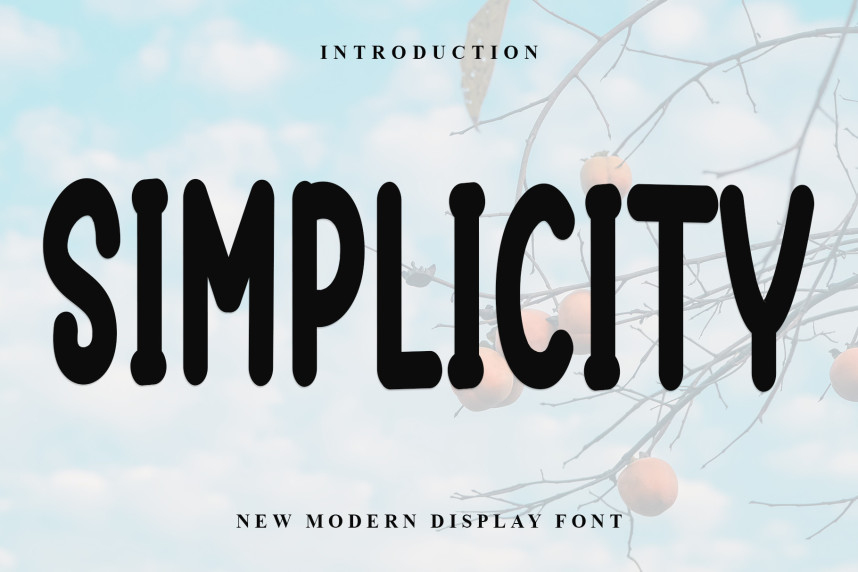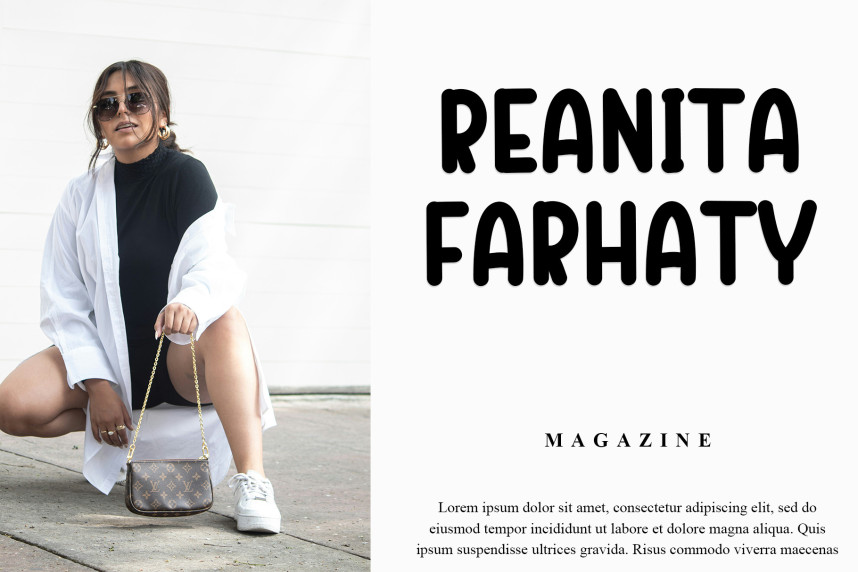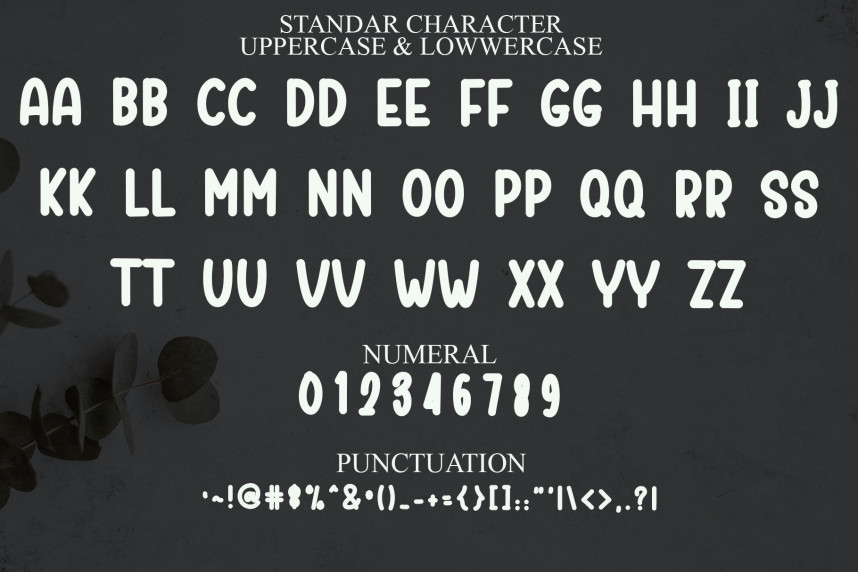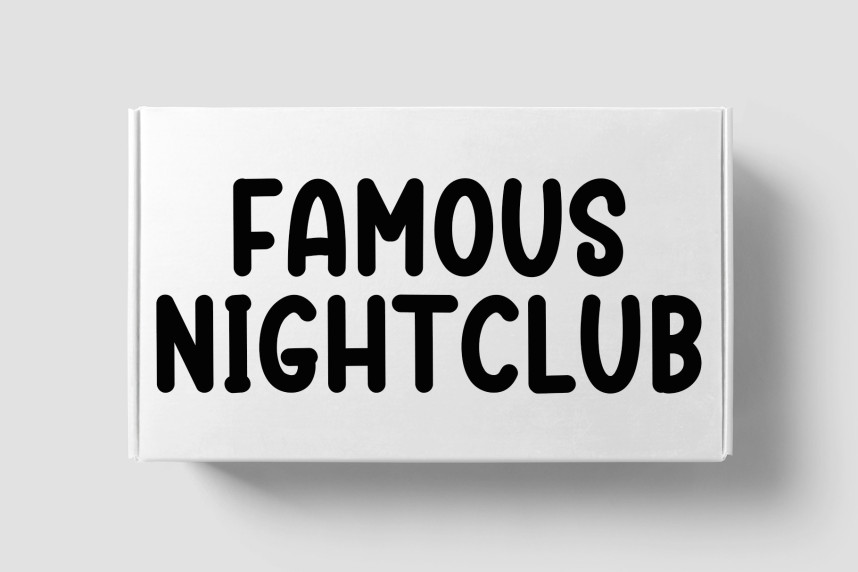
Simplicity Playful Font
Simplicity Playful Font is a sweet and friendly handwritten font. Its natural and unique style makes it incredibly fitting to a large pool of designs. The only limit is your imagination!